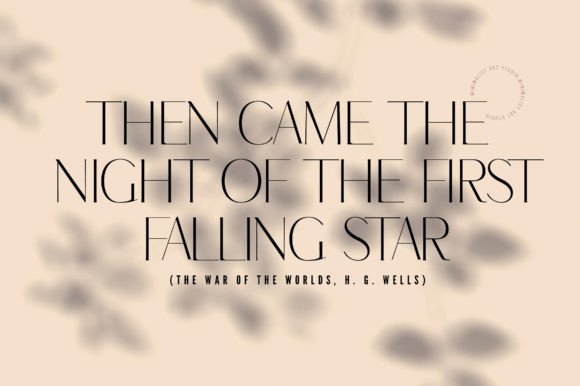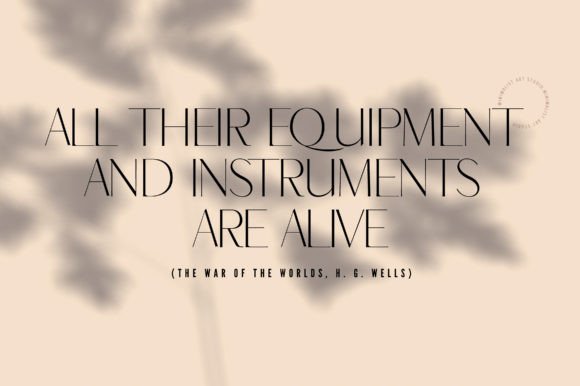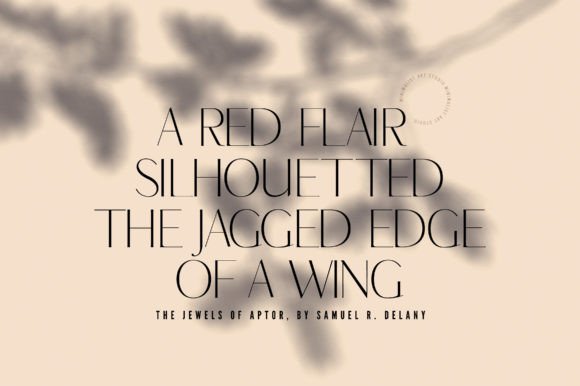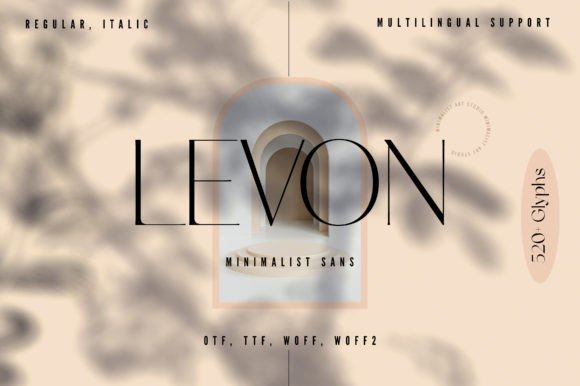
Introduction to Levon Font
Levon is an elegant and chic sans-serif font that is perfect for modern and minimalist design projects.
This font features a sleek and sophisticated look that is sure to elevate any design to a new level of sophistication You can use this versatile font for branding, marketing, web, and print design.
Levon Font offers exceptional quality and versatility, making it a valuable addition to your design toolkit. Whether you’re creating for personal projects or commercial use, Levon Font delivers professional results.